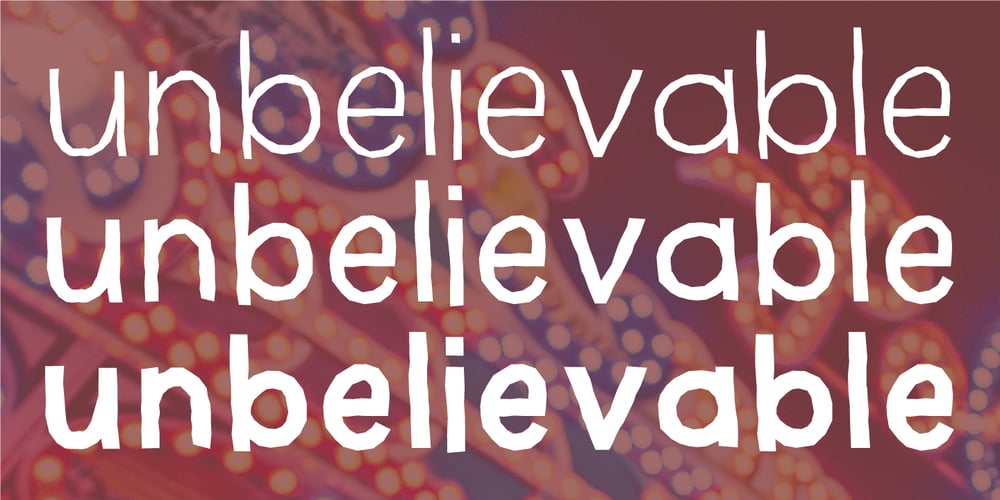
Jawbird
Jawbird font
Jawbird Font Family was designed by Jakob Fischer and published by PizzaDude.dk. Jawbird contains 6 styles and family package options. Sans serif font made out of straight lines only. A legible font with a loose feeling of both comic and grafitti. Comes with several ligatures for double letters!